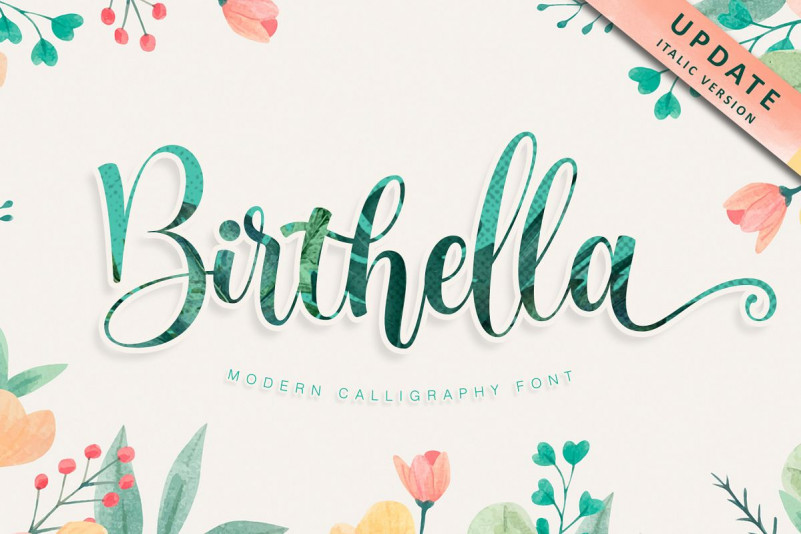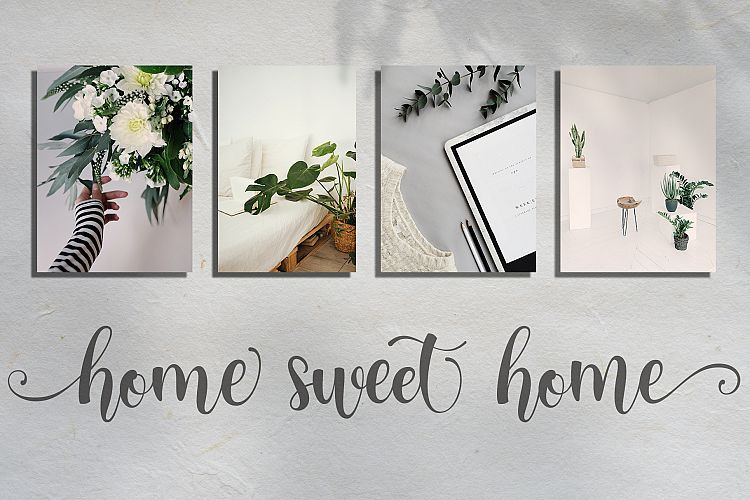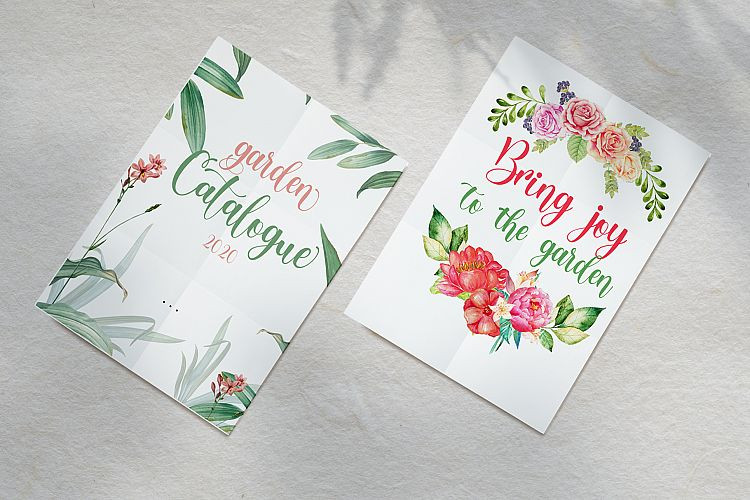
Birthella Font
Birthella is a script handwritten font, with a sweet and playful vibe. It’s the ideal font for turning any crafting idea into a true standout.